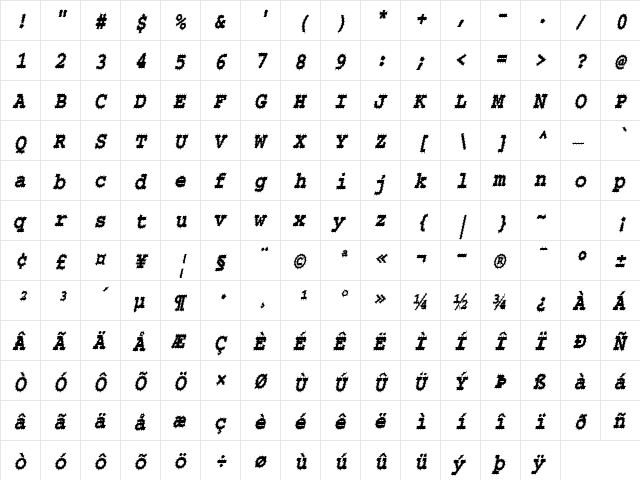
ChiselSpikedCondensed Italic Font Preview
Design Context for ChiselSpikedCondensed Typeface
ChiselSpikedCondensed is a composed and adaptable typeface that performs quietly and consistently across a wide range of design contexts. The dynamic lean of this cut emphasises speed and emphasis in any layout. The condensed width makes it efficient for tight spaces without sacrificing legibility.
Pro Tip: Try ChiselSpikedCondensed for annotation and caption copy alongside an upright companion — the contrast in angle creates a dynamic but ordered typographic system.